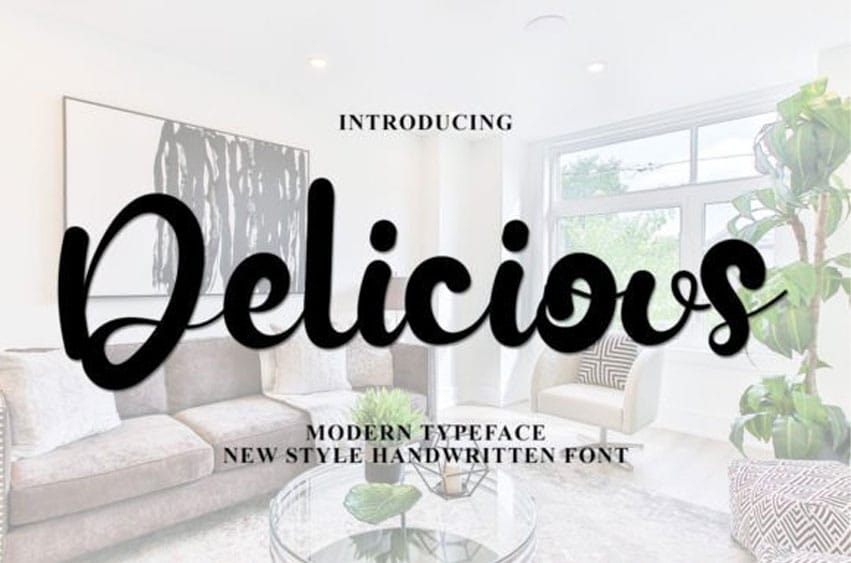
Delicious Font is a stunning script font. Whether you’re working on a wedding invitation, a branding project, or a social media post.
Delicious will help you capture the attention of your audience and create a lasting impression. Purchase now and start creating stunning designs that are sure to impress.